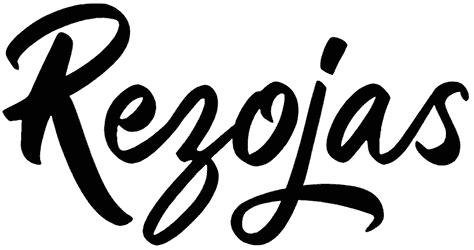
Rezojas Font
To accelerate the procedure of designing eye-grabbing graphic content, you require a reliable source of inspiration, and in this regard, a lovely script font such as Rezojas can be your savior.
This brush font has crooked and angular characters, so it looks insanely perfect on a wide range of creative ideas, including gift cards, applications, stationery, or social media posts. Needless to say, it leads to a vibe of vivacity, dynamism, and playfulness.